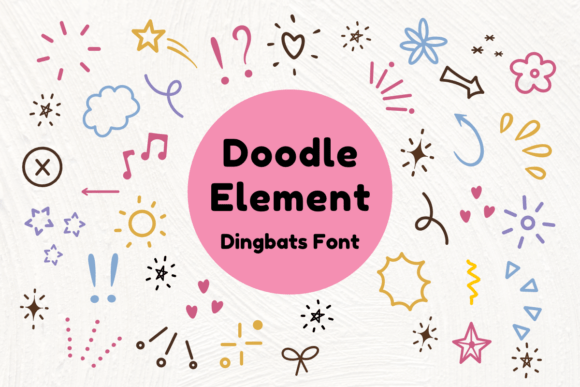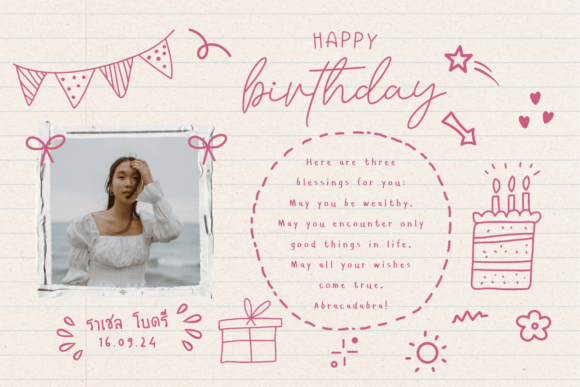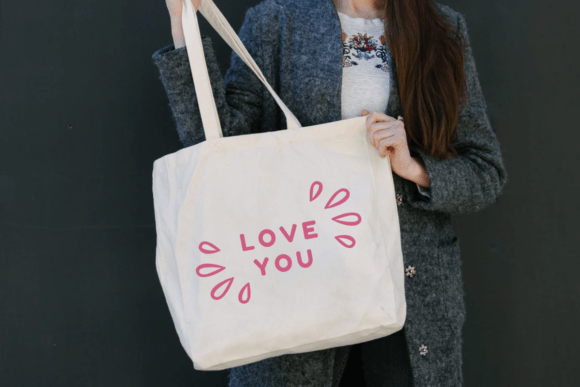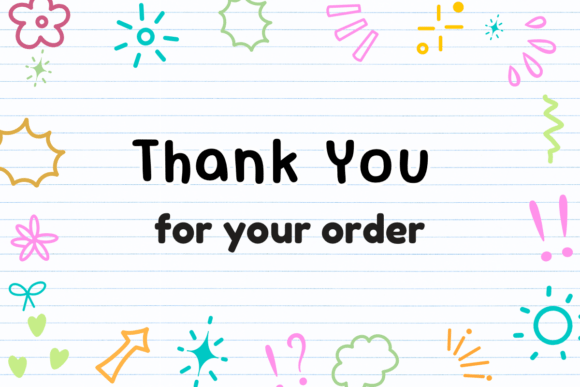
Doodle Element Font: Cute Dingbats for Crafts & Cricut Projects!
About the Doodle Element Font
Let us introduce you to Doodle Element Font, where timeless design meets modern craftsmanship. Doodle Element is a dingbats font with an abstract theme. This font can enhance your creative projects such as wedding invitations, DIY, crafts, decorations, logos, and many other creative ideas.
Doodle Element’s playful, hand-drawn aesthetic makes it ideal for projects requiring a lighthearted and approachable feel. It excels in branding for children’s products, craft businesses, or whimsical events. Use it effectively in logos, short headlines, and decorative elements on packaging or invitations. However, its low legibility makes it unsuitable for body text or UI elements.
Pairing Doodle Element with a clean sans-serif like Open Sans for body text creates a strong contrast, balancing the font’s informality. For a more sophisticated look, consider pairing it with a classic serif like Garamond for headings that require a touch of elegance. Avoid pairing it with other highly decorative fonts; this could create visual clutter.
The font’s core personality is undeniably friendly and informal. It conveys creativity and a handmade quality, perfect for projects seeking a unique, non-corporate brand identity.